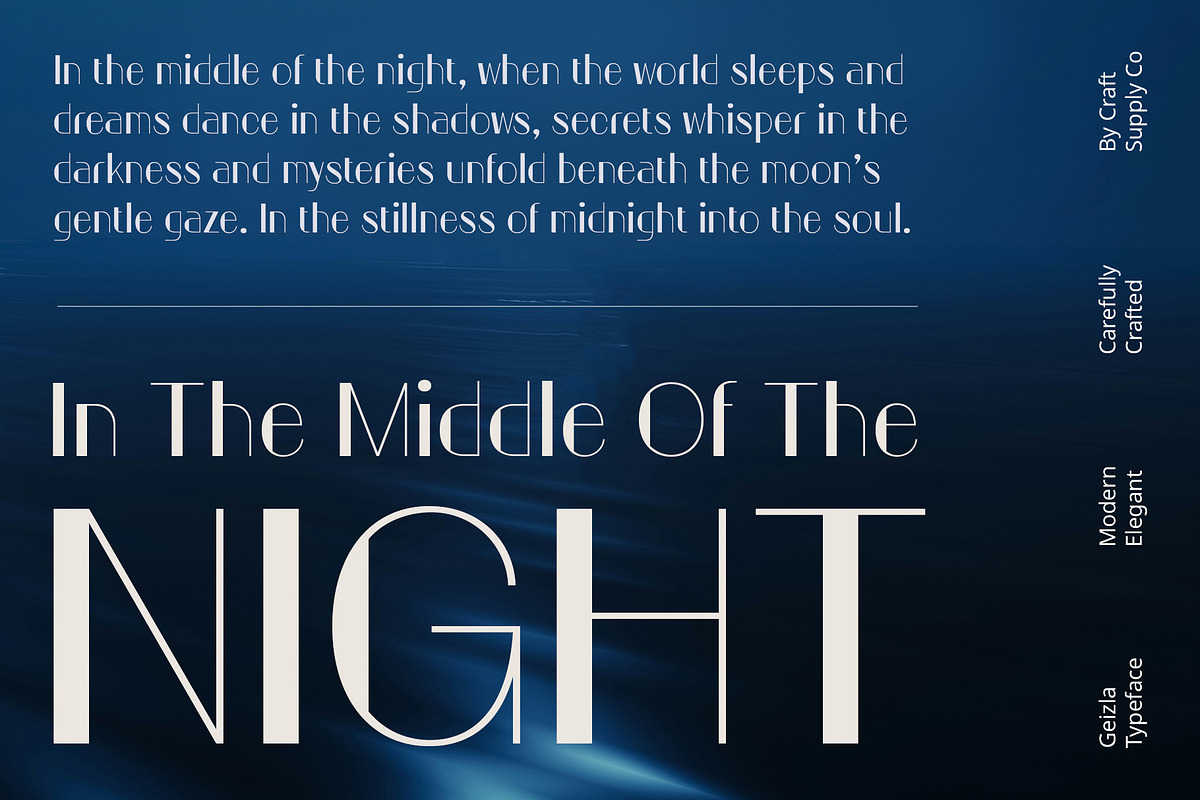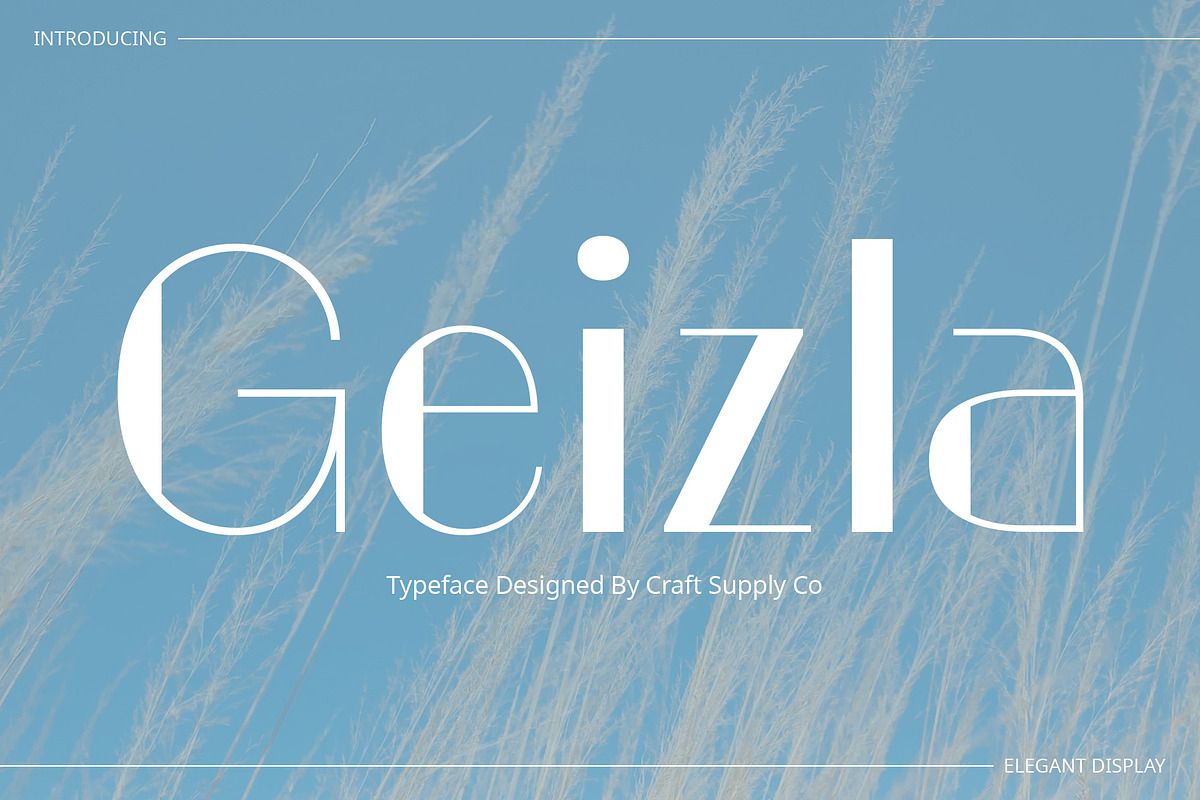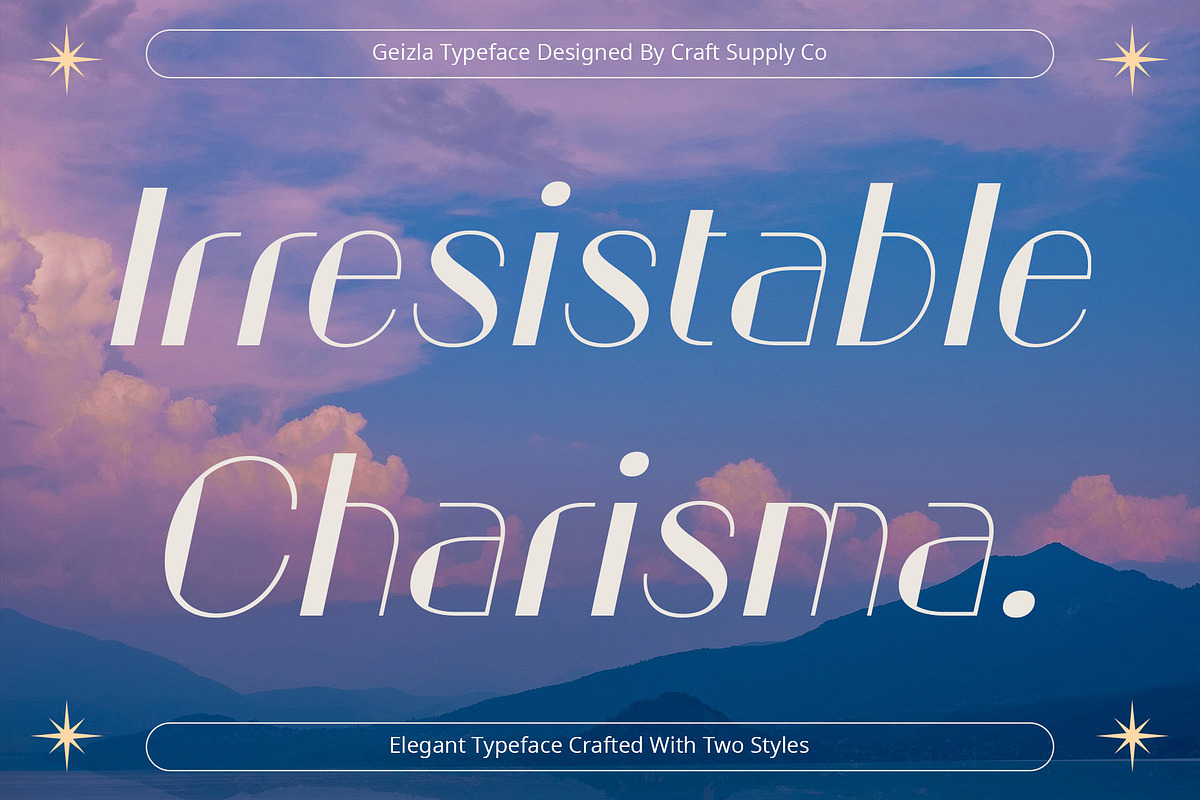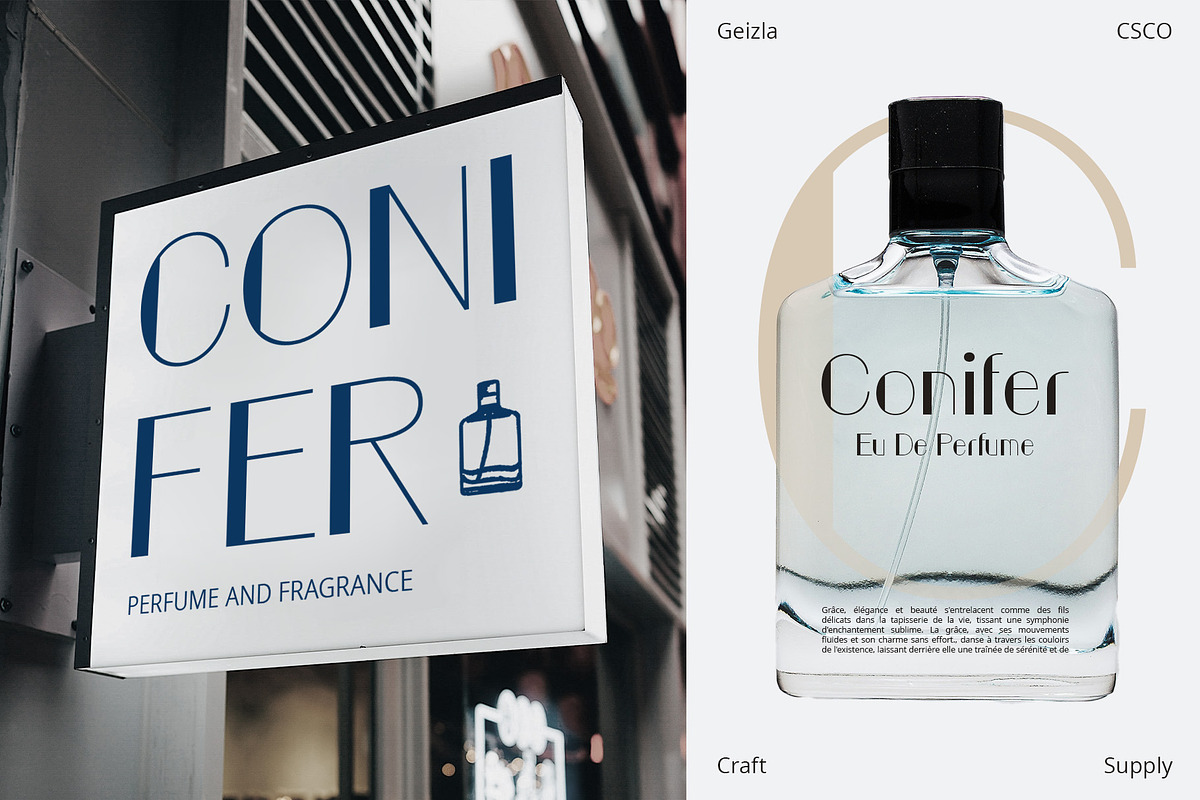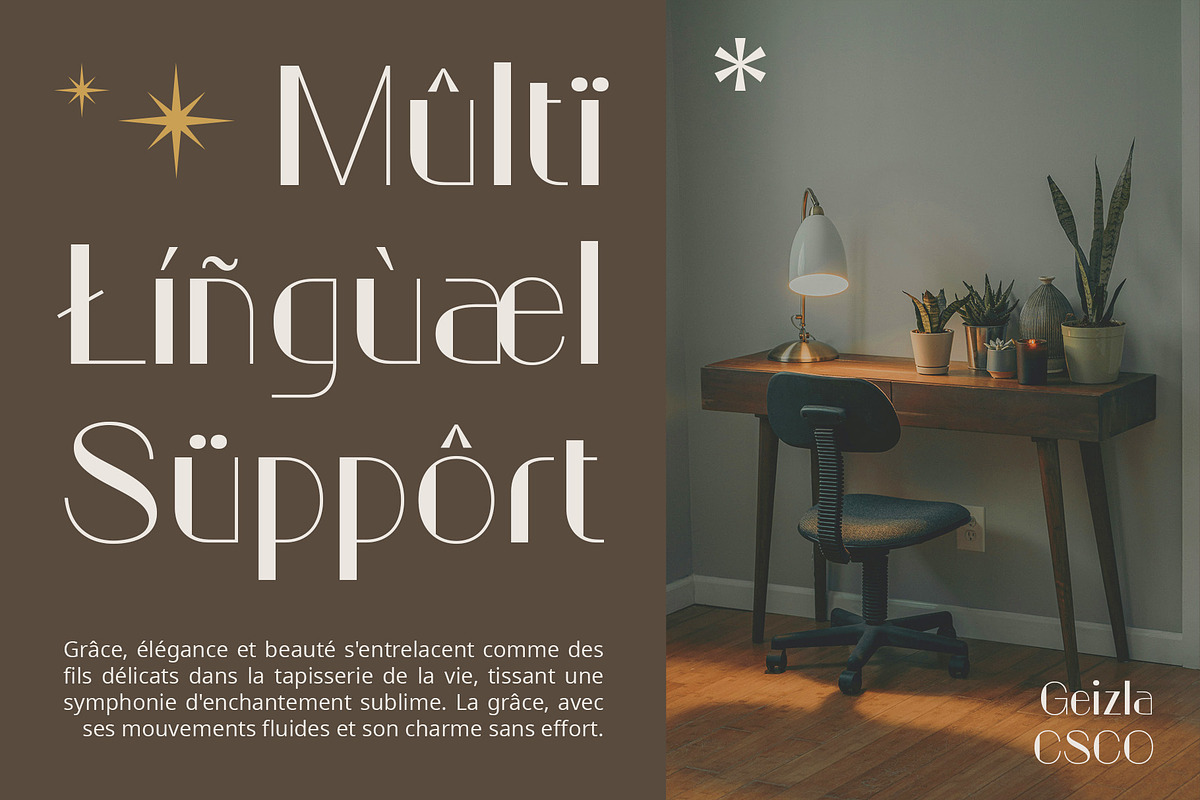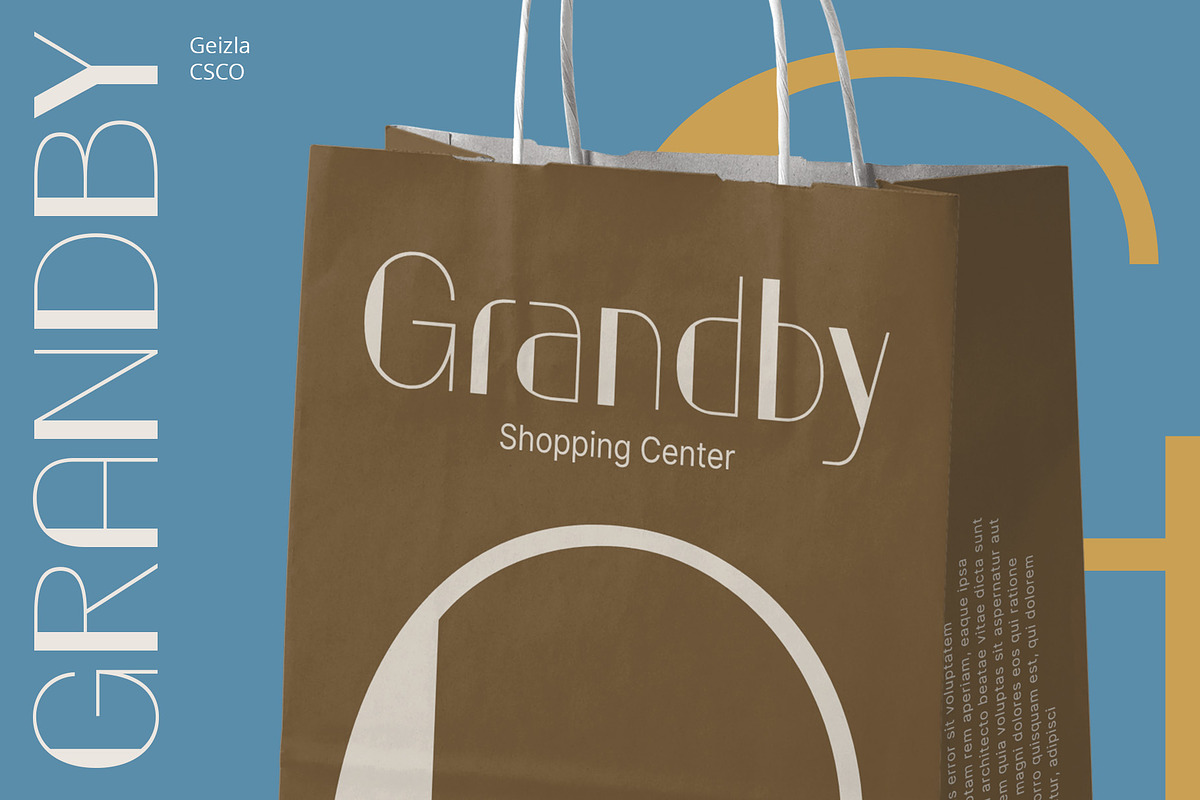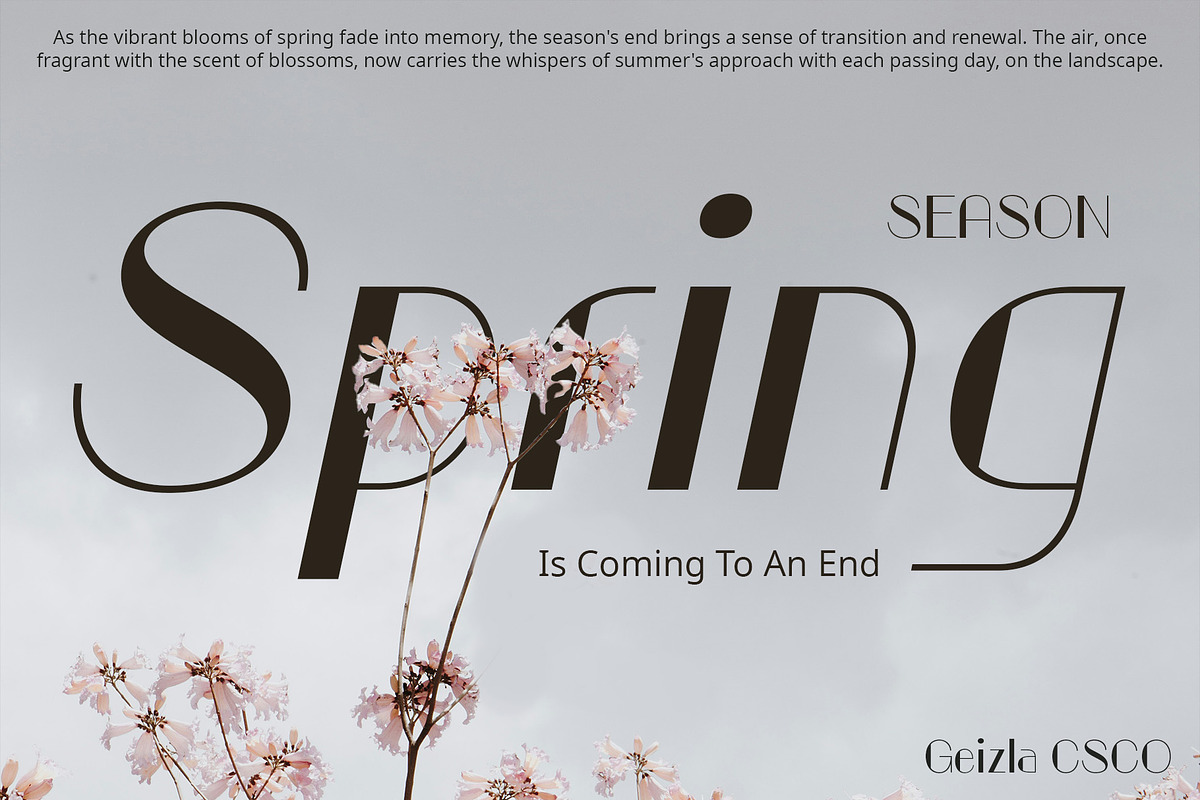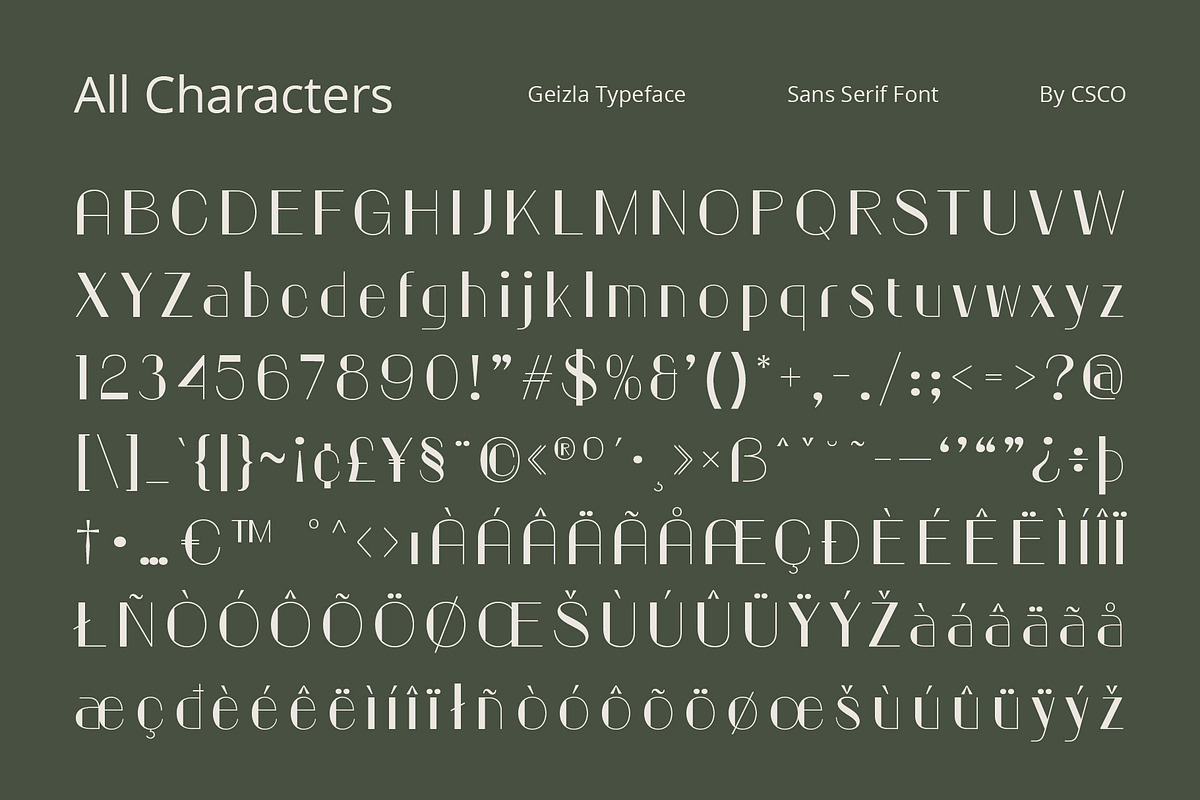
Geizla – Modern Sans Serif
Geizla Modern Sans Serif: Where Elegance Meets Professionalism
Elegant Professional Sans Font
Geizla is a modern sans serif font that combines elegance with a clean, professional style. Perfect for organizational and professional use, this font adds a refined and sophisticated touch to your designs.
Modern Sans Serif with Elegant Style
With its sleek lines and contemporary design, Geizla offers a fresh take on traditional sans serif fonts. The elegant style creates a polished and professional look, ideal for corporate branding, presentations, and other projects that need a touch of sophistication.
Perfect for Organizational Displays
Whether you’re designing a corporate report or creating a sleek business logo, Geizla is sure to make an impression. Its elegant design and professional appeal make it perfect for displays that demand clarity and convey a sense of modern refinement.
Versatile and Easy to Use
Despite its refined appearance, Geizla is versatile and easy to use. The font works well in both large and small sizes, making it suitable for a variety of applications, from headlines and banners to body text and more. With its blend of modern design and elegant style, Geizla adds a captivating and professional touch to any design.
- Geizla Regular
- Geizla Italic